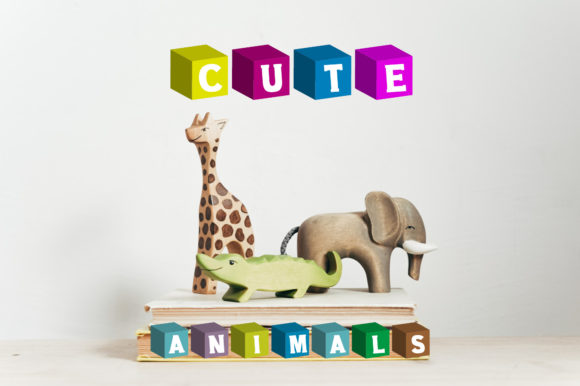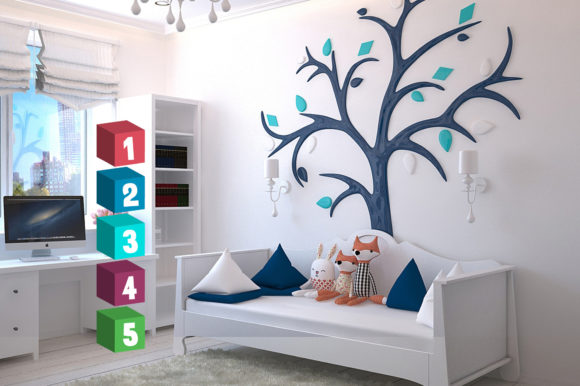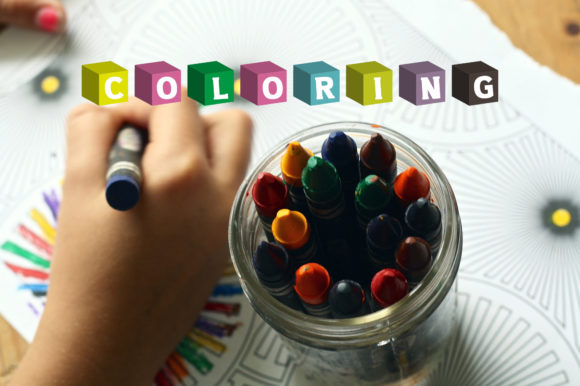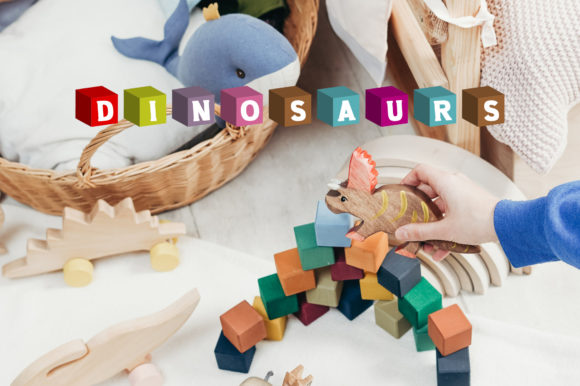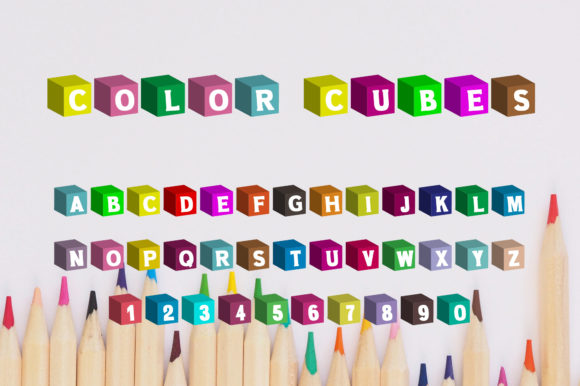
Discover the Joyful World of Color Cubes Font
I’ll never forget the time I was working on a children’s book project, and I just couldn’t find the right font to match the playful tone of the story. The client wanted something that would appeal to kids and make the text feel like a fun, interactive experience. That’s when I stumbled upon Color Cubes Font, and it completely transformed my design. In this article, I’ll share my experience with this delightful font, its features, and how to make the most of it in various design platforms.
A Personal Review of Color Cubes Font
- ✅ Cartoon-like and full of joy: Color Cubes Font brings a burst of energy and playfulness to any design project.
- ✅ Perfect for children and school projects: The font’s friendly and approachable feel makes it an excellent choice for educational materials, children’s books, and craft projects.
While Color Cubes Font is an amazing addition to any design project, there are a few things to keep in mind:
- 🤔 Requires some knowledge of OpenType features: To get the most out of Color Cubes Font, you’ll need to familiarize yourself with OpenType features, glyphs, and stylistic alternates.
The Backstory of Color Cubes Font
Color Cubes Font was designed with the intention of bringing a sense of joy and playfulness to the world of typography. The designer, inspired by the colorful and whimsical world of children’s toys, aimed to create a font that would evoke feelings of happiness and creativity. With its unique, cube-like letterforms and vibrant color palette, Color Cubes Font is sure to delight designers and audiences alike.